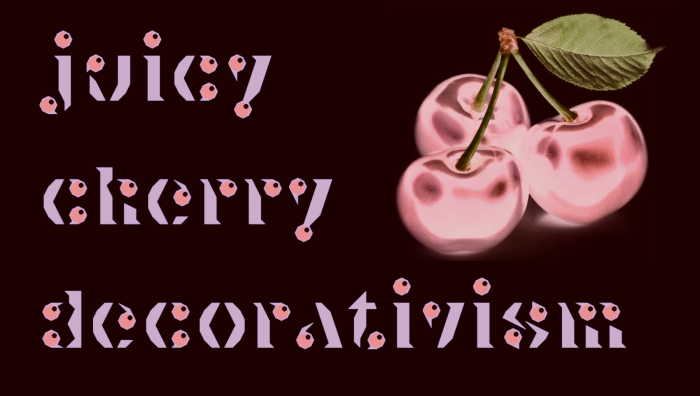
I can get the colors like in the sample on GIMP by selecting Colors > Hue-Saturation, setting Hue to 180, then picking Colors > Invert, which is probs what they did when the sample is made…
red & blue in all of my colorful fonts are arbitrary — red is ec3030 and blue 3030ec (i use these two codes just because i can easily remember them) — i expect everyone will change both colors according to his/her likings in use. in the sample, colors are inverted (in Inkscape filter - can't recall precise settings - was doing it haphazardly), then i also added (all over) a transparent-reddish veil (can't recall exact hue).
I can get the colors like in the sample on GIMP by selecting Colors > Hue-Saturation, setting Hue to 180, then picking Colors > Invert, which is probs what they did when the sample is made…
red & blue in all of my colorful fonts are arbitrary — red is ec3030 and blue 3030ec (i use these two codes just because i can easily remember them) — i expect everyone will change both colors according to his/her likings in use. in the sample, colors are inverted (in Inkscape filter - can't recall precise settings - was doing it haphazardly), then i also added (all over) a transparent-reddish veil (can't recall exact hue).